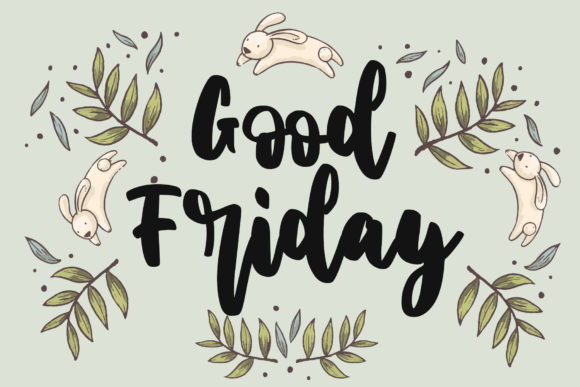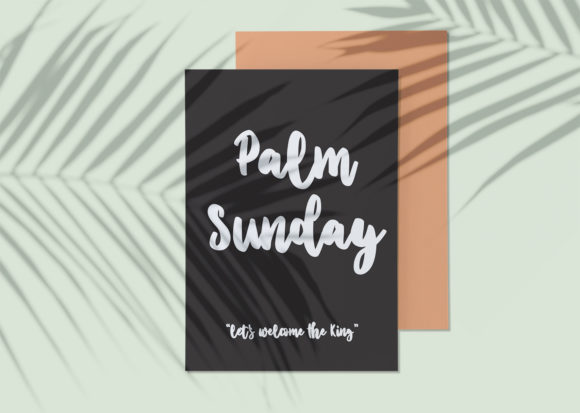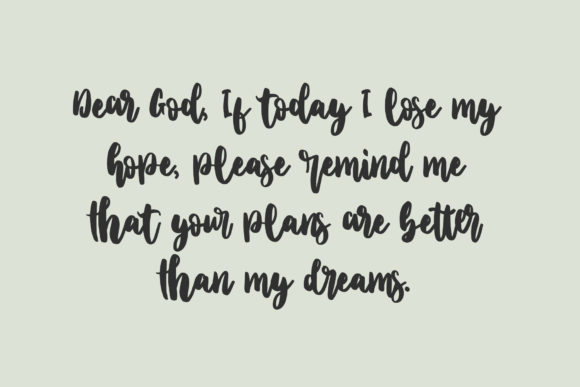
Good Friday Font
About Good Friday Font
Good Friday is a cute and flowing paint brushed handwritten font. This font is PUA encoded which means you can access all of the glyphs and swashes with ease! . Add Good Friday to your favorite creative ideas and notice how it makes them come alive!